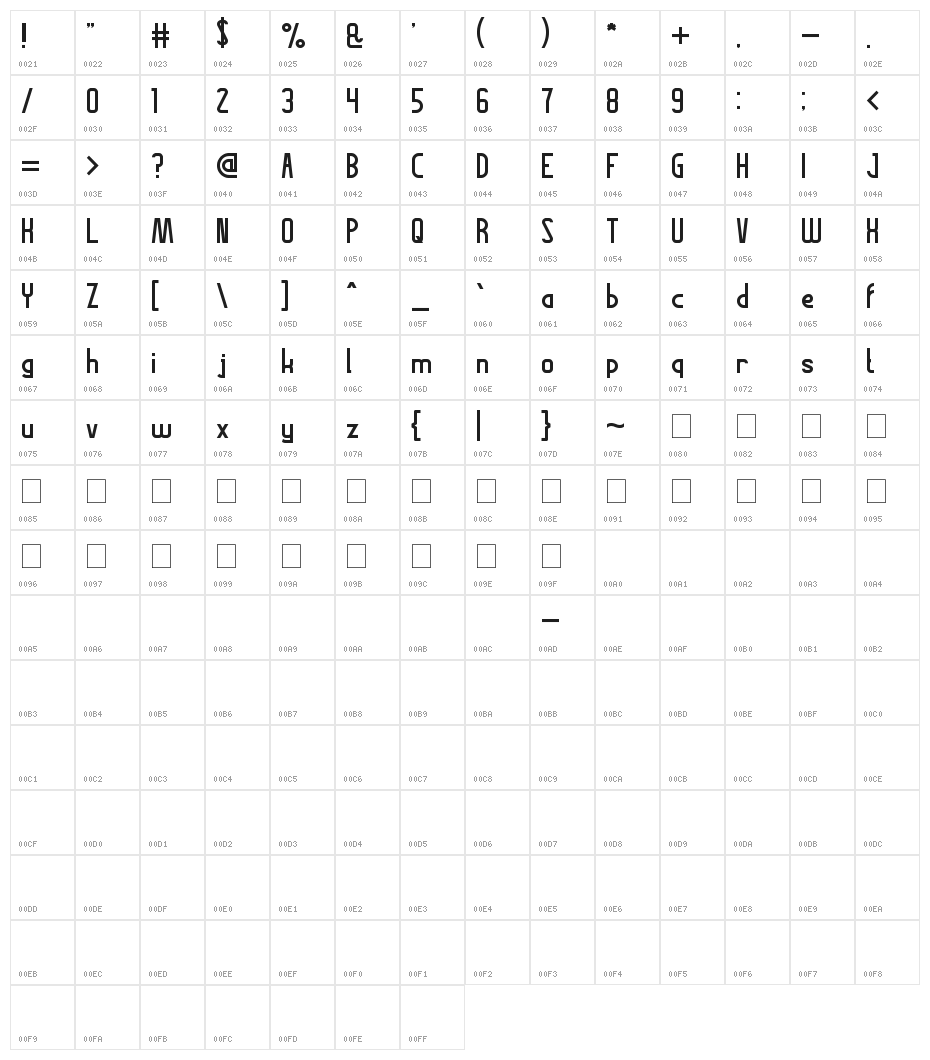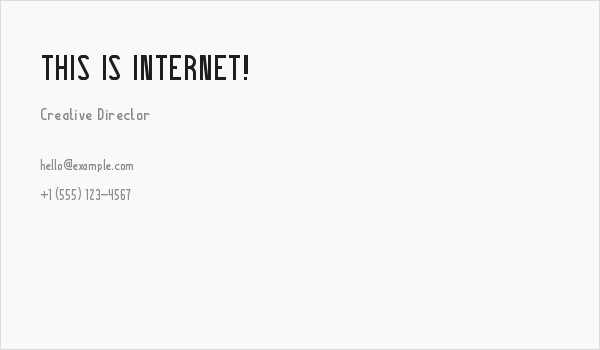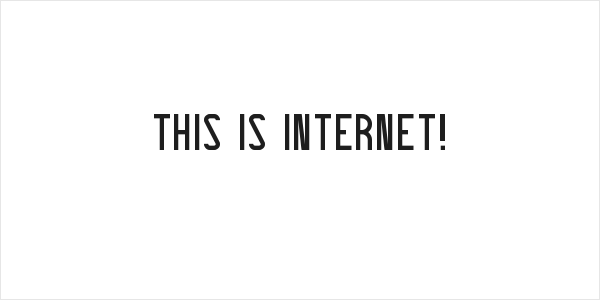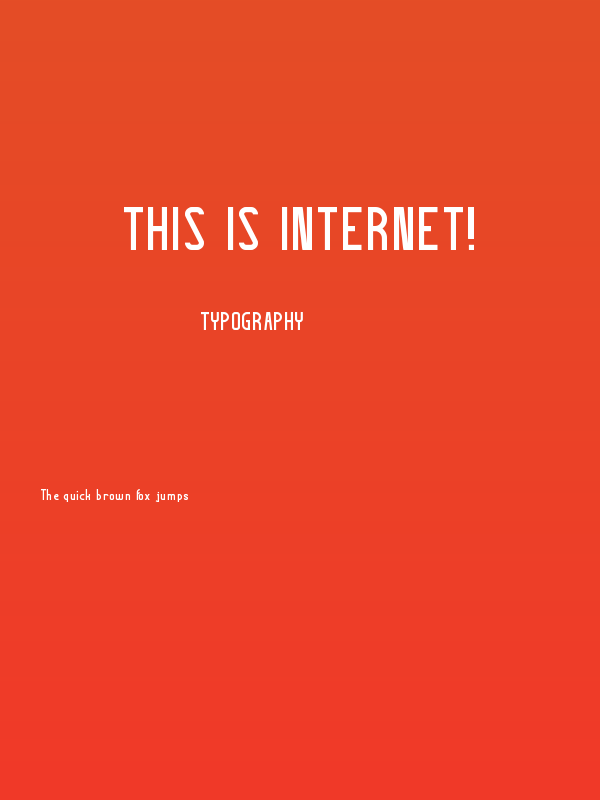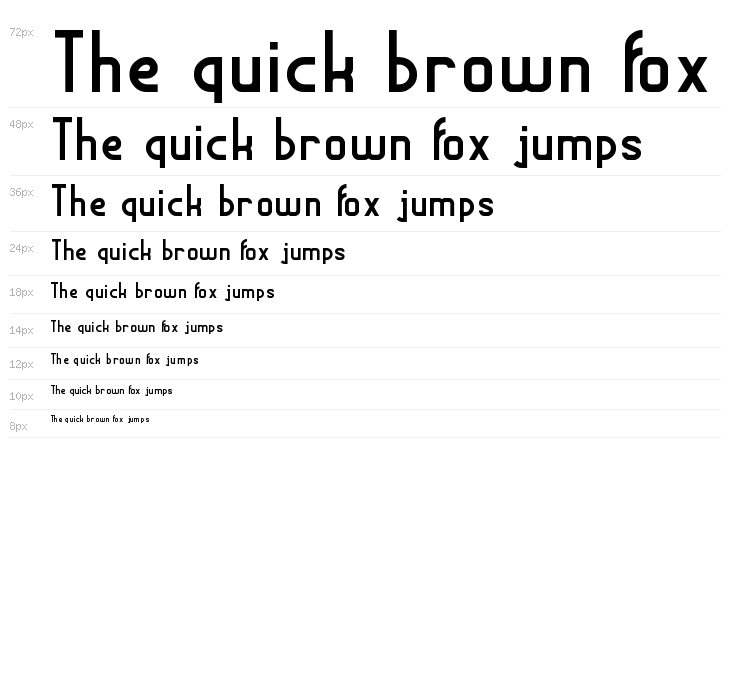
THIS IS INTERNET! Font
THIS IS INTERNET! Description
This typeface features a modern and geometric design with clean, straight lines and a uniform stroke width. The uppercase letters are tall and narrow, giving a sleek and contemporary appearance. The lowercase letters maintain a consistent style, with some unique elements such as the curved tail on the 'g' and the distinctive shape of the 't'. The numerals are clear and legible, matching the overall aesthetic of the alphabet. Special characters are well-integrated, maintaining the geometric theme. This font's design is both functional and stylish, making it suitable for a variety of applications.